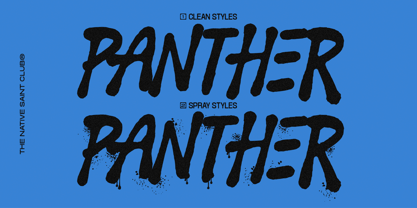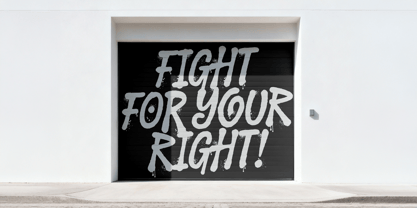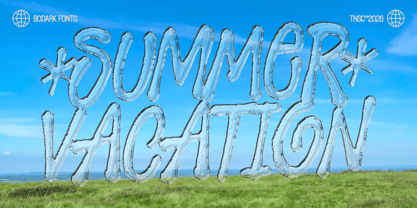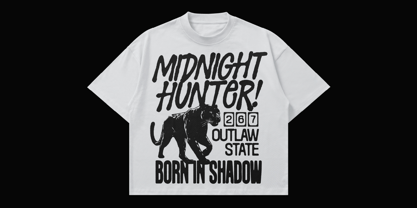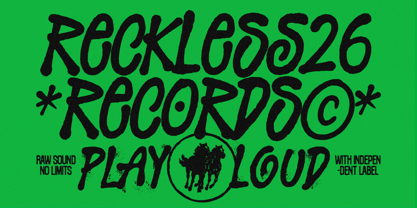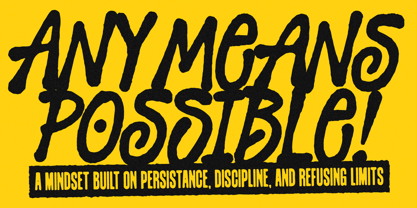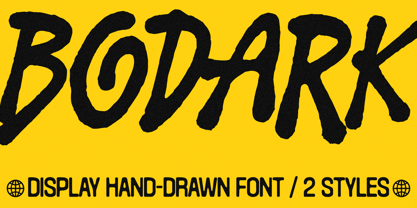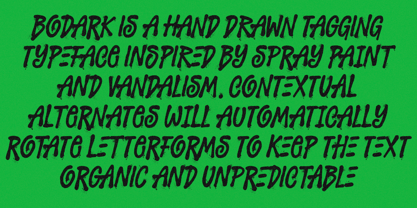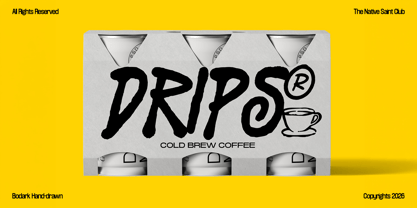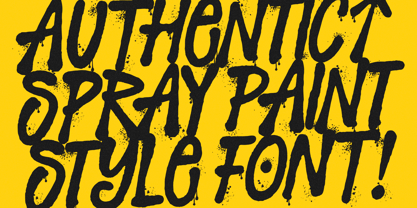
The Bodark Font Family was designed by Bagas Ferdiansah, Septianto Nugroho and published by The Native Saint Club. Bodark contains 2 styles and family package options. More about this family
TNSC Bodark is a hand-drawn display font inspired by raw tagging culture, spray paint, and urban vandalism. Built with an organic and expressive flow, each letter carries a natural and unpredictable feel, bringing authentic street energy into your designs. It comes in 2 styles: Clean and Spray Styles. Perfect for posters, streetwear branding, album covers, packaging, social media, and bold editorial layouts. We hope you enjoy the font, please feel free to comment if you have any thoughts or feedback. Thanks for purchasing and have fun! Regards, The Native Saint Club